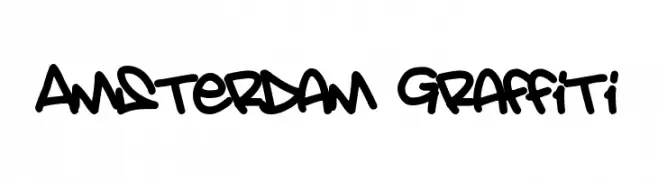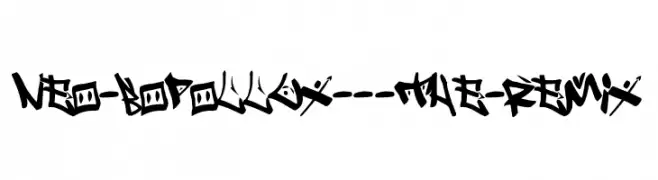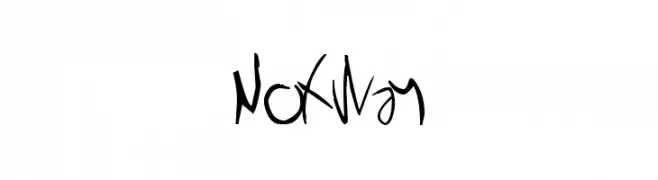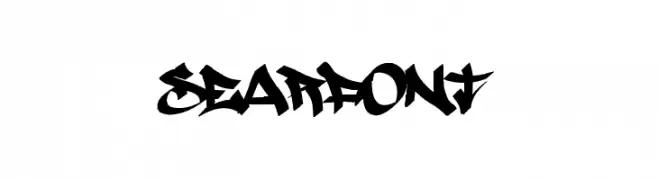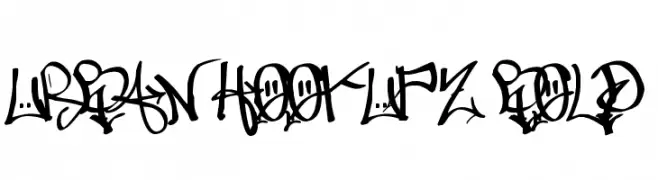
A bold, graffiti-inspired font with angular, stylized letterforms and an urban vibe.
An edgy, hand-drawn font with a chaotic and energetic style.
A graffiti-inspired font with bold, dynamic characters and playful arrow elements.
A bold, graffiti-inspired font with an urban, edgy style.
A bold, graffiti-inspired font with a dynamic, hand-drawn style.